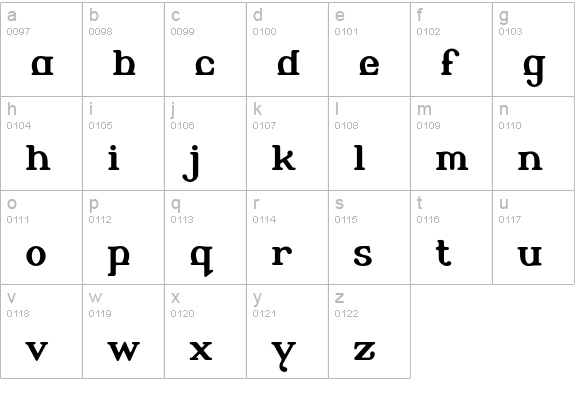
AlembicBeta-BoldOne font is a striking and modern typeface that exudes confidence and authority. Its bold and unique design makes it perfect for headlines, titles, and other attention-grabbing text. The thick strokes and sharp angles give this font a strong presence on the page, making it ideal for projects that require a bold statement. What sets AlembicBeta-BoldOne font apart is that it is not only visually appealing but also versatile and easy to read. Whether you're designing a poster, flyer, or website, this font will make your text stand out and leave a lasting impression on your audience. The best part is that AlembicBeta-BoldOne font is completely free to download at FontsMarket.com. So go ahead and add this powerful and stylish font to your collection today!